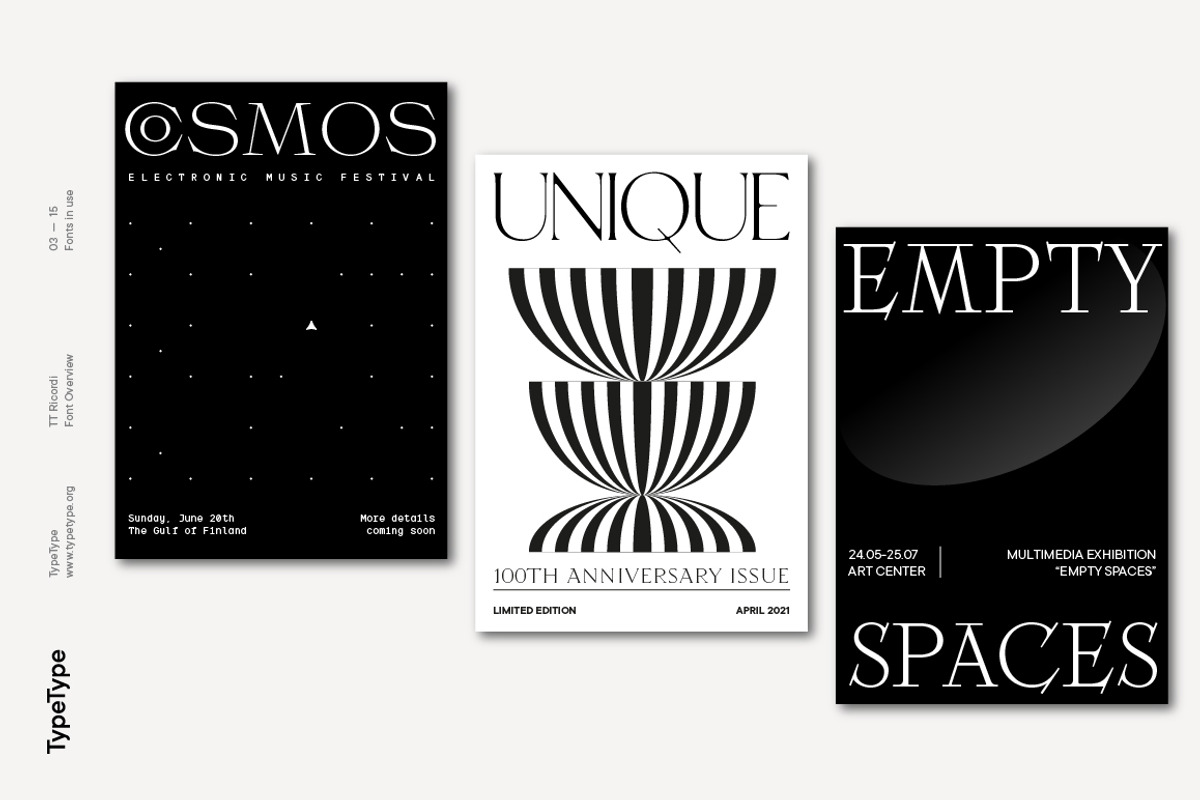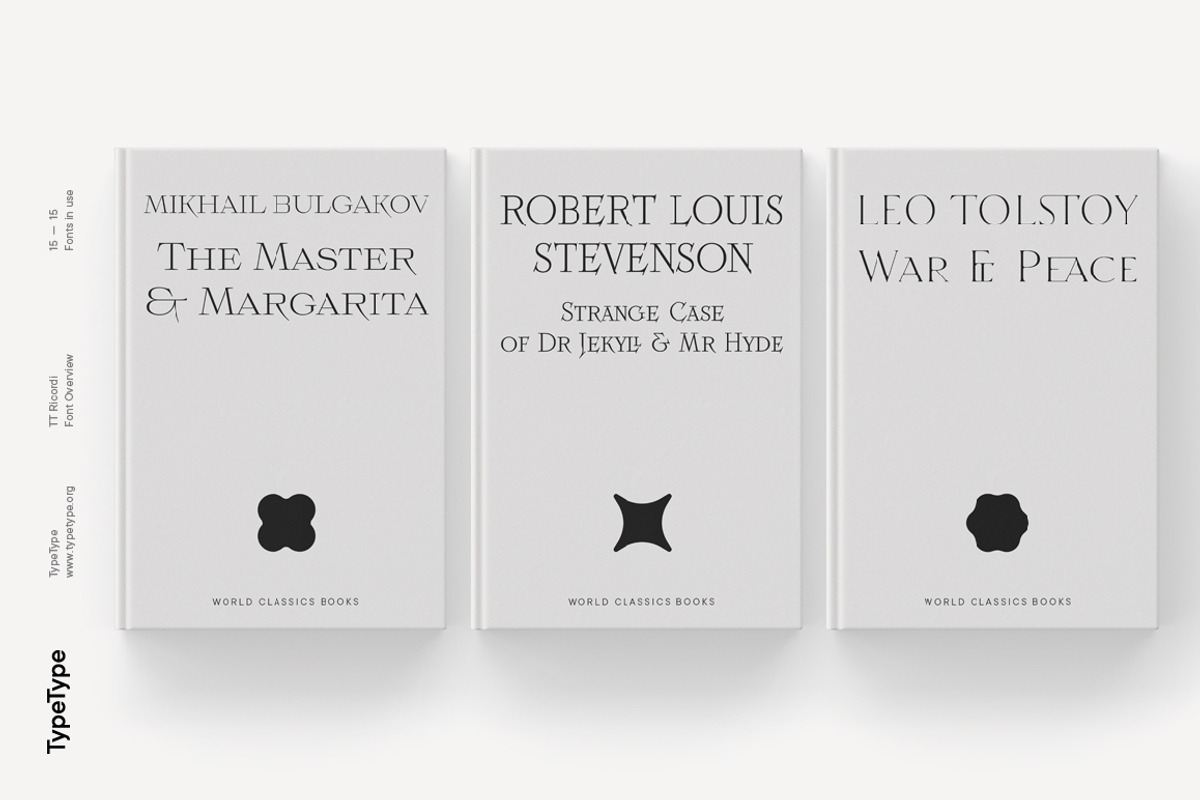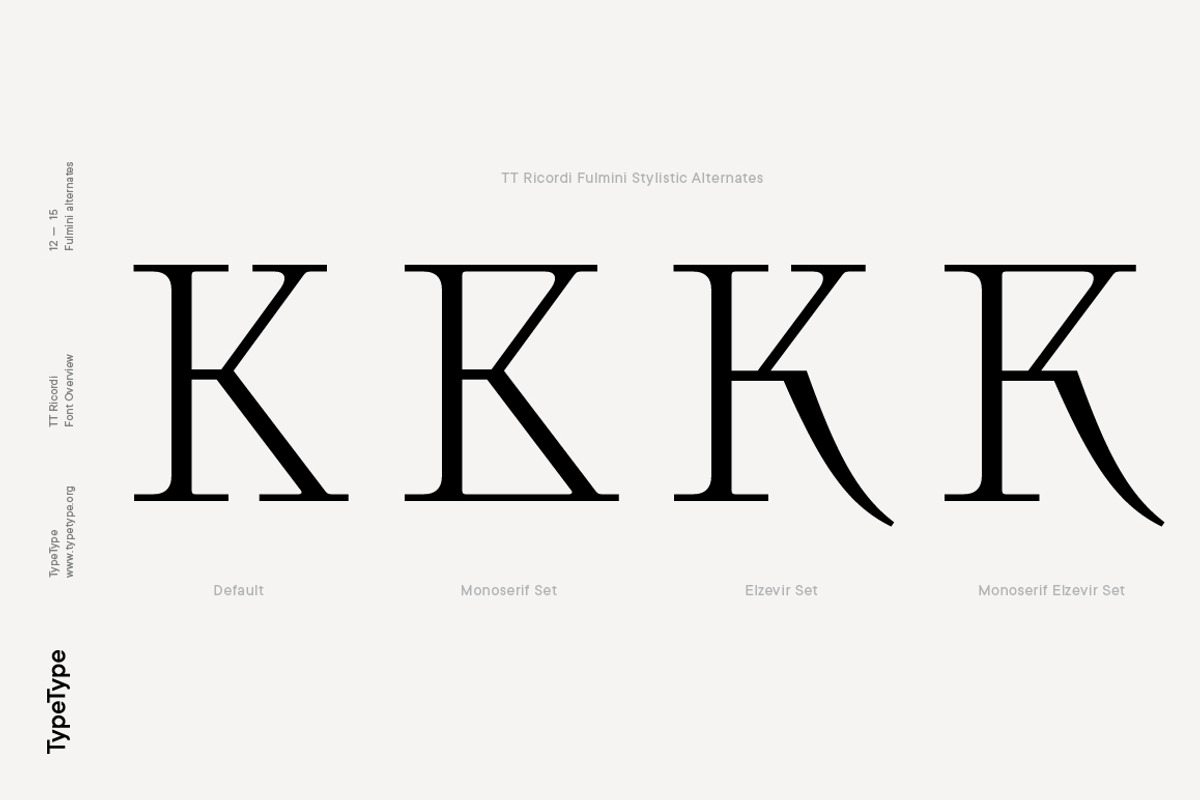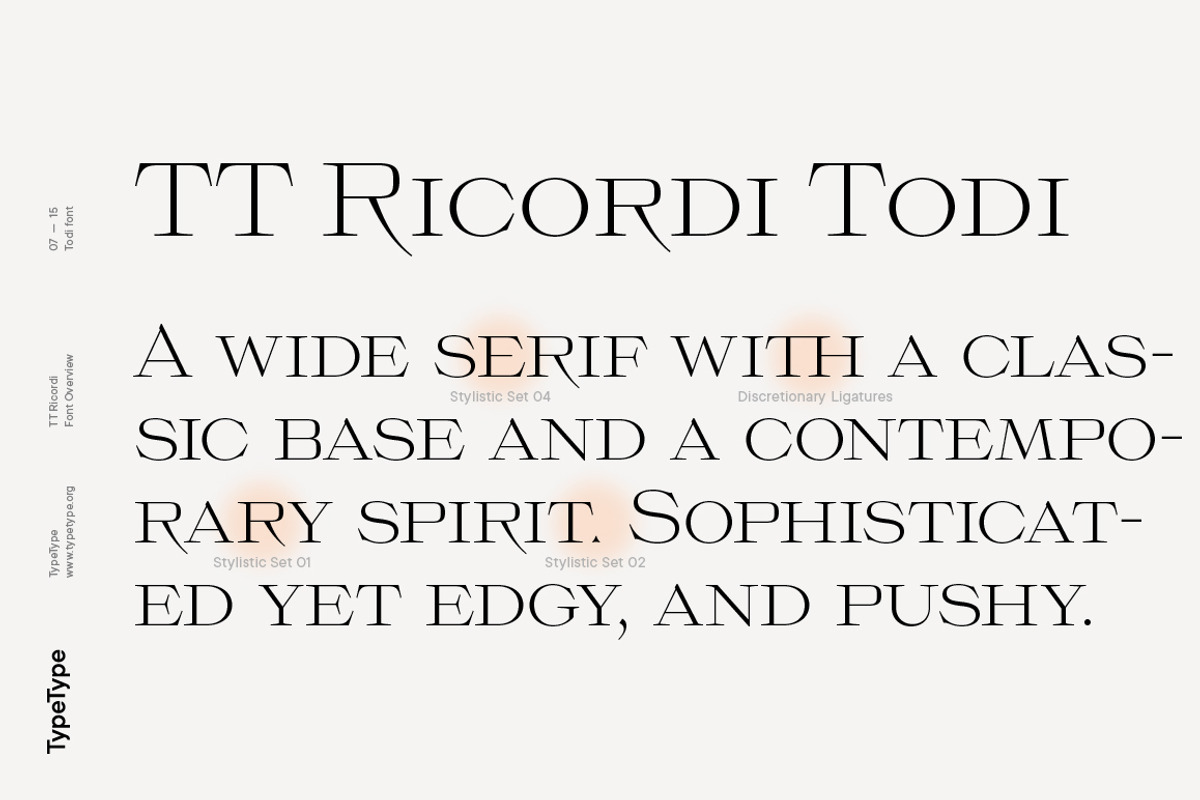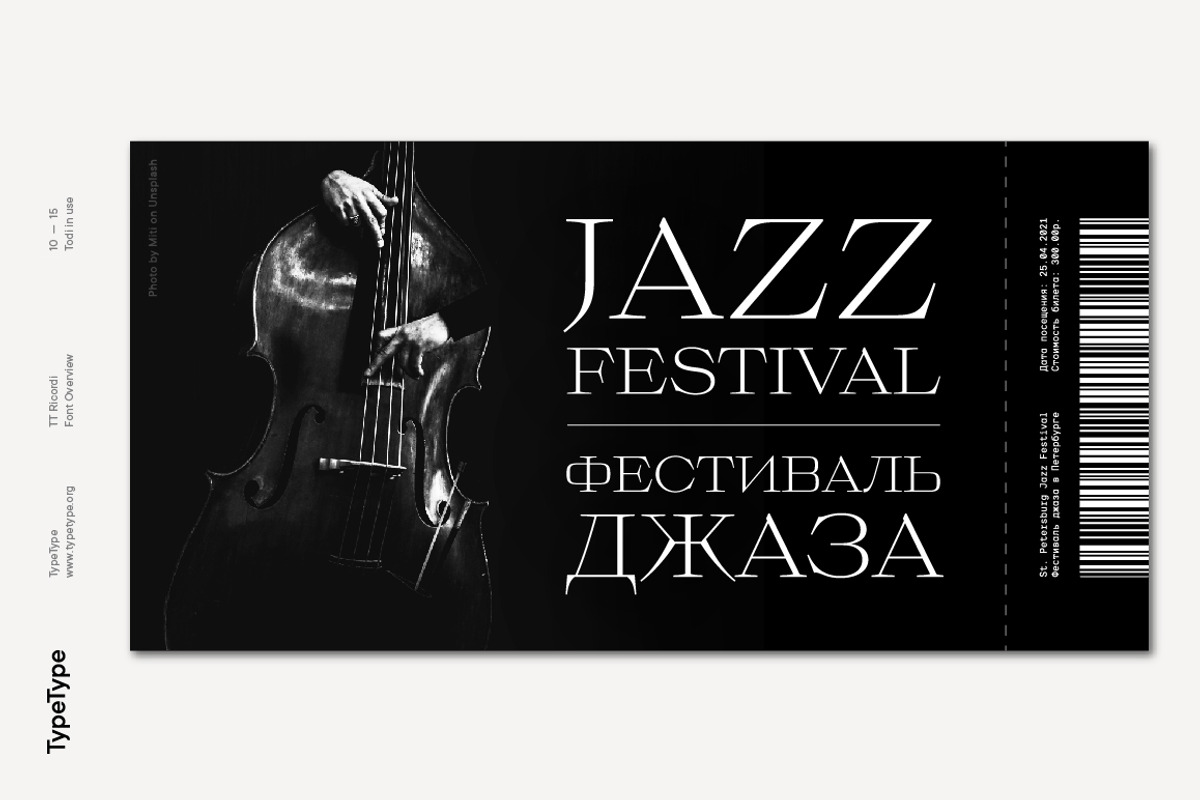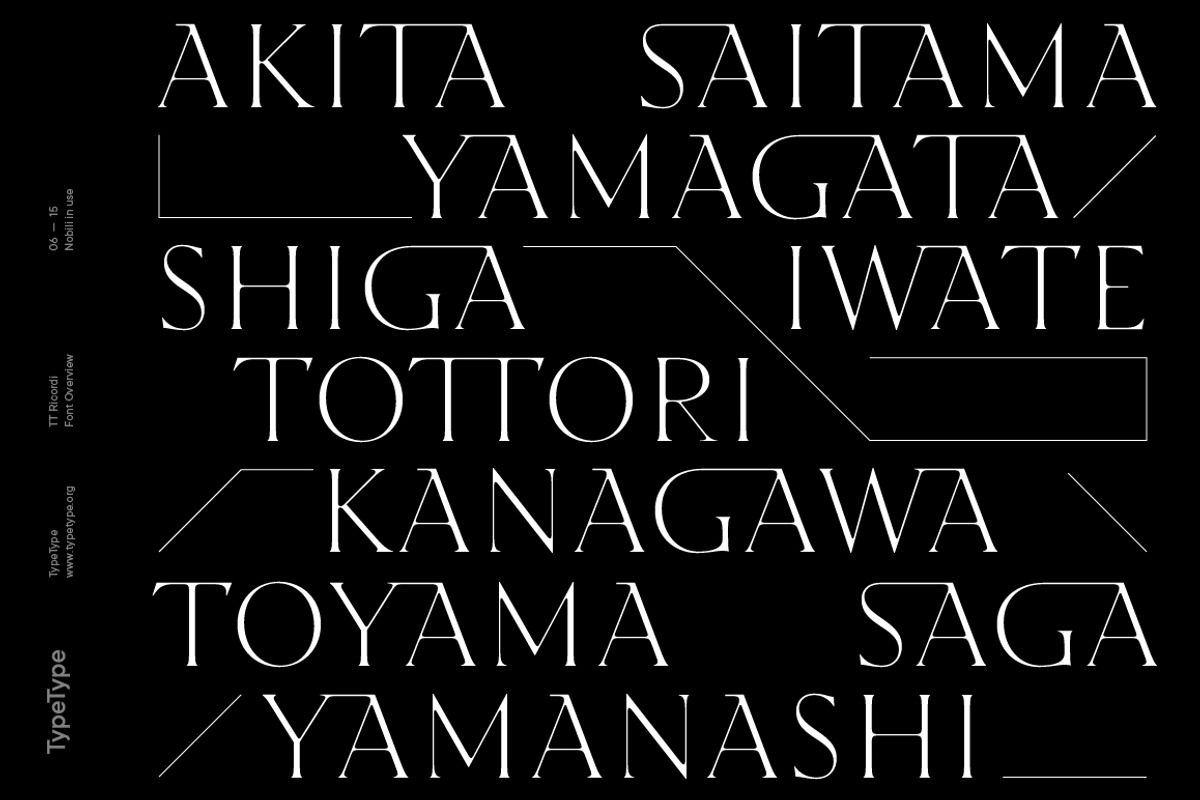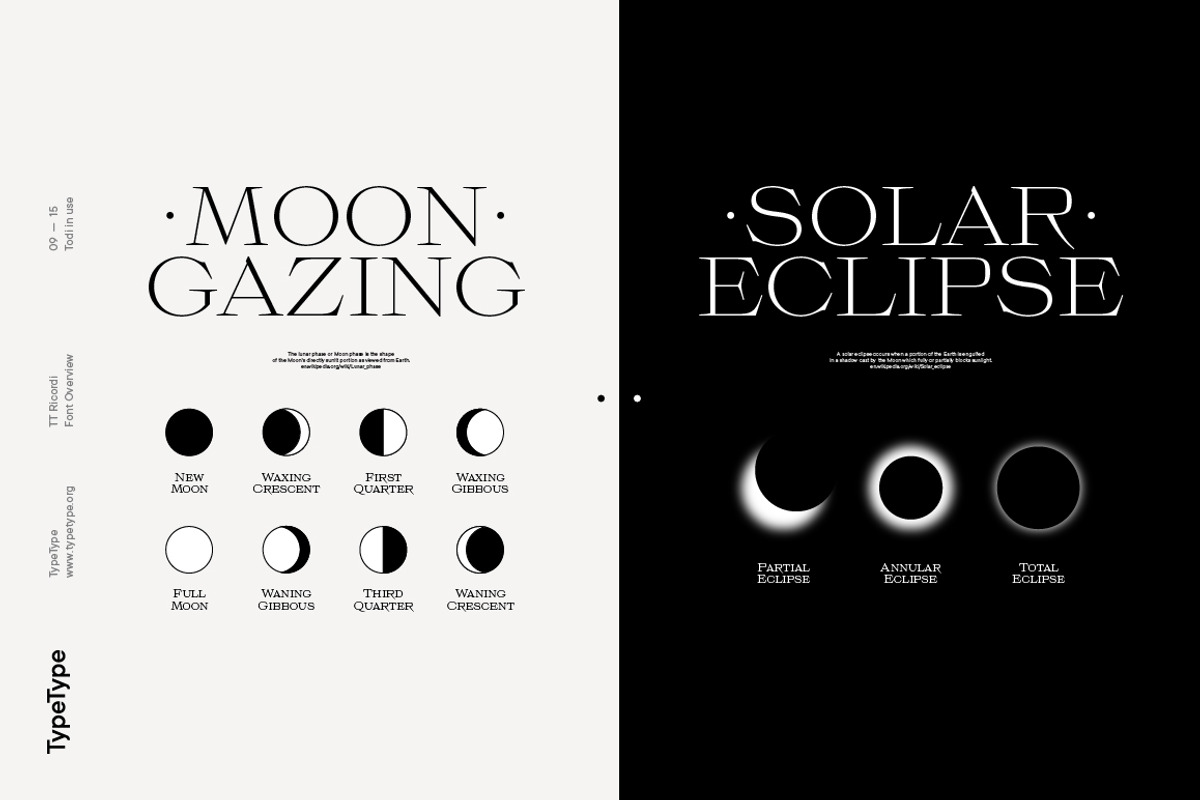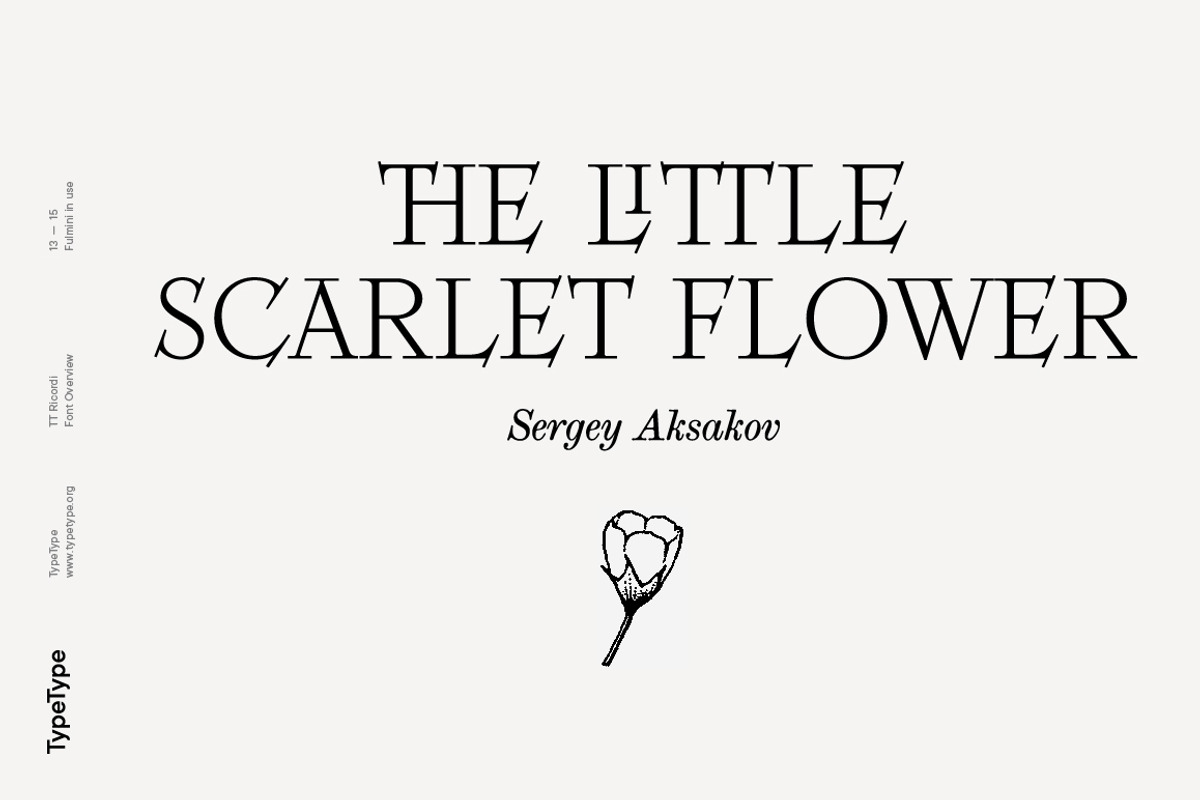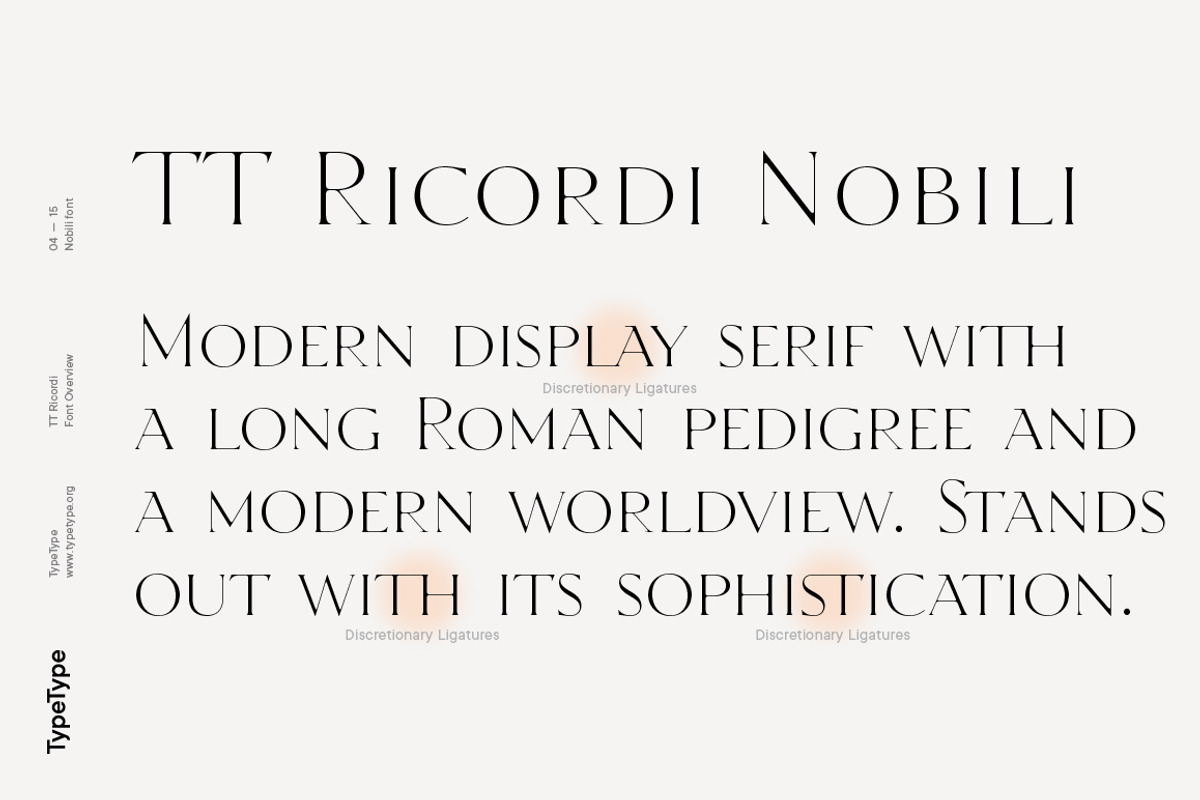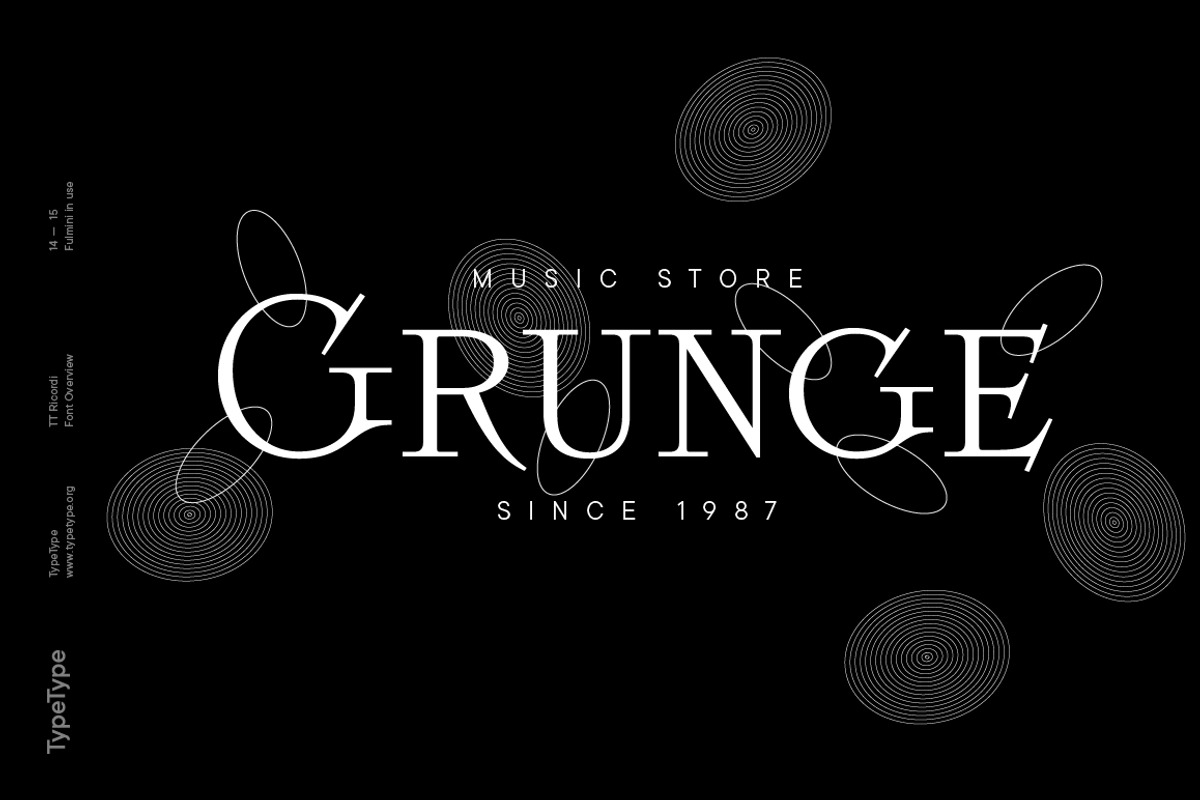
TT Ricordi
TT Ricordi in numbers:
- 3 styles by a separate designers
- Over 700+ glyphs in each font
- Supports 180+ languages (incl. Cyrillic)*
- 17+ OpenType features, including Alternate characters, Stylistic Sets and other.
The TT Ricordi font family is a collection of three display heading serifs designed to significantly diversify the traditional font palette. Each font from the TT Ricordi family was drawn by a separate designer and has its own story. With that, all three fonts are close in thickness and similar in their character compositions and are featured in the uppercase set and the small capitals set, which replaces lowercase characters. The fonts have broad support of Latin languages and support basic Cyrillic.
The project originates from the pre-coronavirus tourist trips to Italy, during which our art director Yulia Gonina has accumulated many photographs of historical inscriptions and tablets. Many of these inscriptions had an interesting character or unusual character shapes. We wanted to work with them, to try to reinterpret them, and, if possible, make them ultramodern and accessible to the modern font user.
The fonts from the TT Ricordi typeface turned out to be quite display and contemporary, but at the same time they retained subtle references to historic inscriptions. The fonts fit perfectly both on the covers of book classics and in glossy magazine layouts. They can also be used in posters and packaging, or as the main expressive element of company branding. In addition, all three serifs from the TT Ricordi font family go well with functional sans-serifs such as TT Norms Pro or TT Commons Pro.
COLLECTION OF THREE DISPLAY HEADING SERIFS
TT Ricordi Nobili is a display serif with a rich Roman ancestry and contemporary world views. It stands out from the crowd with its subtlety and elegance. The font was drawn by Anna Tikhonova and was inspired by an inscription carved into the stone floor of a cathedral in Florence. Because people walked over the inscription, some of the letters got thinner and worn out over time. It is this feeling of disappearing or flickering elements that we wanted to capture and implement in the project.
The TT Ricordi Nobili has a high contrast, even though the font itself is quite thin. The serifs in the font are not massive at all, but at the same time they are display serifs. There is a certain tension in TT Ricordi Nobili, and the viewer perceives this tension. We can say that behind the external classic facade lies a rather modern plot. The font has a large set of discrete ligatures which allow to create interesting combinations and expand the capabilities of the font. There are 709 glyphs in the TT Ricordi Nobili font, and a whole set of useful features, such as: aalt, ccmp, locl, numr, ordn, tnum, pnum, case, dlig, ss01, ss02, ss06, ss07, ss08, ss09, ss10, calt.
TT Ricordi Todi is a wide serif with a classic base and a contemporary nature. The font turned out to be refined yet sharp, and in places even pushy and aggressive. The font was drawn by Yulia Gonina, and the project was based on plaques with engraved street names from the small Italian town of Todi. The main challenge was to decipher the characteristic features of the signs and emphasize them in a modern way. In addition, it was necessary to draw a Cyrillic alphabet that would not be inferior to the Latin alphabet in its expressiveness.
The TT Ricordi Todi has fairly wide character proportions, and there is practically no contrast in them. The main feature of the font is the combination of smooth round shapes with deliberately squared shapes. In addition, the font is characterized by crisp and sharp character details, exaggerated ascenders and descenders, and muted contrast. Among the interesting font peculiarities, you can choose between the characteristic long descenders and ascenders and their more tempered versions, you can find a stylistic set with triangular dots, alternative versions of the EF characters and two letter Ф shapes, round and squared. There are 876 glyphs in the TT Ricordi Todi font, and a whole set of useful features, such as: aalt, ccmp, locl, numr, ordn, tnum, pnum, case, dlig, salt, ss01, ss02, ss03, ss04, ss05, ss06, ss07, ss08, ss09, ss10, calt.
TT Ricordi Fulmini is a fashionable contemporary serif firmly holding on to its historic roots. The font turned out to be like a thistle flower: bright and catchy, but still subtle and delicate. TT Ricordi Fulmini was drawn by Marina Khodak, and the initial inspiration for the project was the inscription on the altar from the National Gallery of Umbria in Perugia. As the font was pulled into “contemporaneity”, it was completely transformed and revealed its new side. The main catchy detail in the TT Ricordi Fulmini is the aggressive and rather sharp diagonal serifs. In addition, in the process of working on the font, several graphic solutions emerged, for example, the mono-serifs and the very calligraphic connections of diagonal strokes with their historic spirit. We wanted to keep them, and thus 4 thematic stylistic sets appeared in the font, thanks to which we can greatly change the perception of TT Ricordi Fulmini. In addition, the font has a set of interesting discrete ligatures. There are 793 glyphs in the TT Ricordi Fulmini font, and a whole set of useful features, such as: aalt, ccmp, locl, numr, ordn, tnum, pnum, case, dlig, ss01, ss02, ss03, ss04, ss05, ss06, ss07, ss08, ss09, ss10, calt.